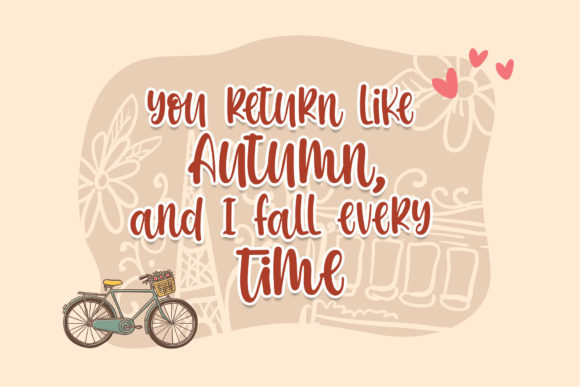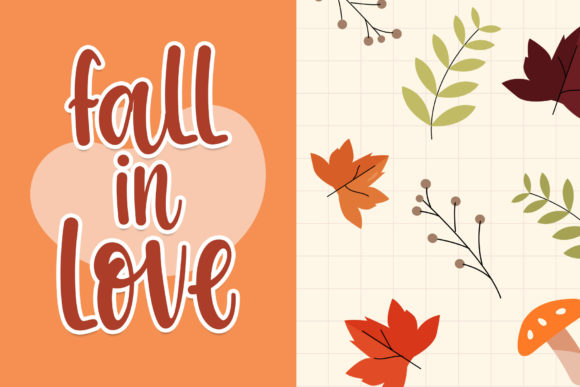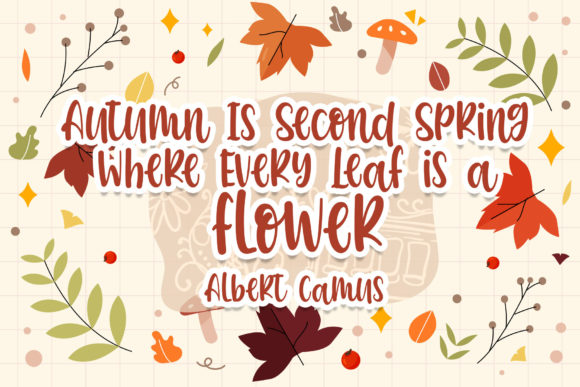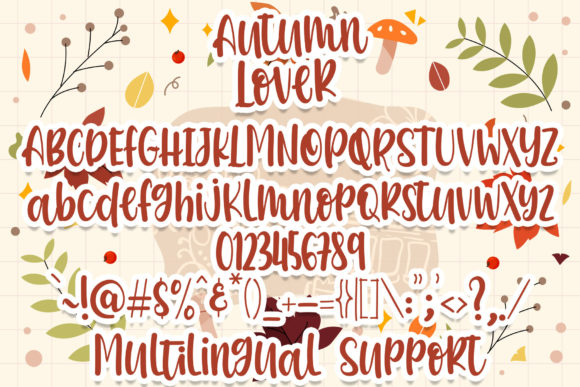
About Autumn Lover Font
Autumn LoverĀ is a delicate and elegant handwritten font. Its distinct and well balanced letters make this font a masterpiece. Fall in love with its incredibly versatile style and use it to create spectacular designs!